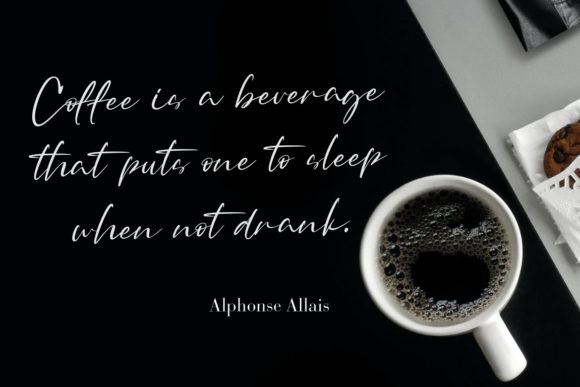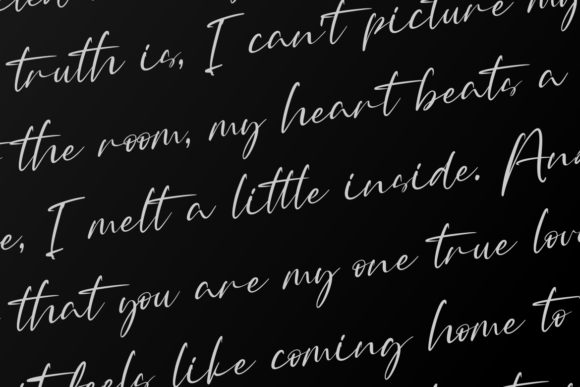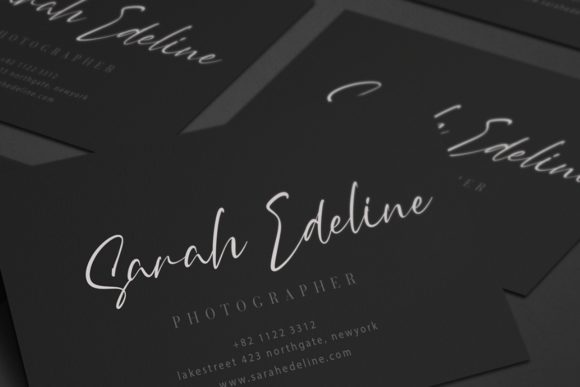
About Rotenfold Font
Rotenfold is a stylish and refined handwritten font. It looks beautiful on a variety of designs requiring a personalized style, such as wedding invitations, thank you cards, weddings, greeting cards, logos and so much more.